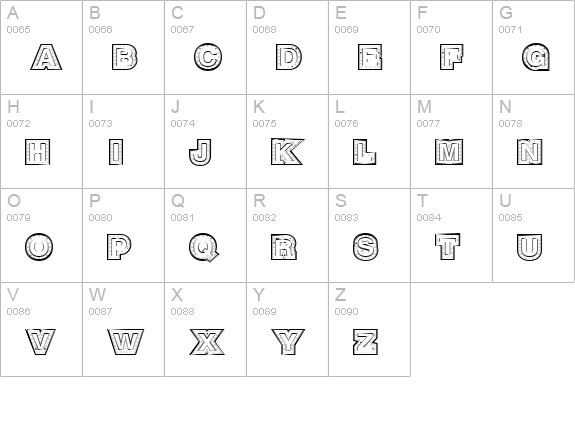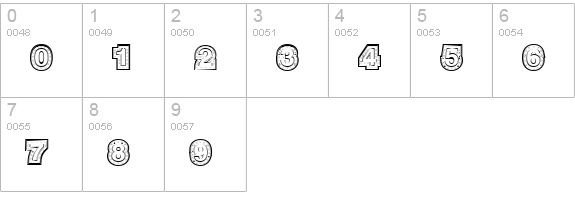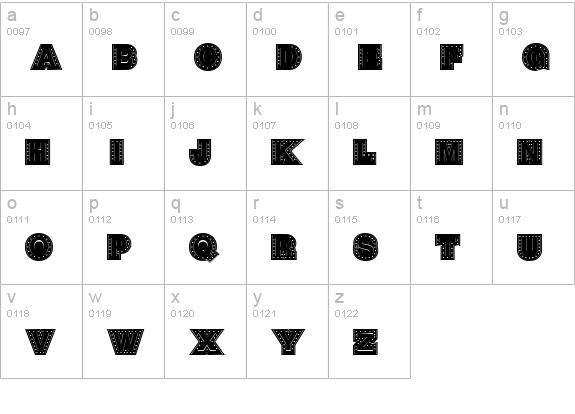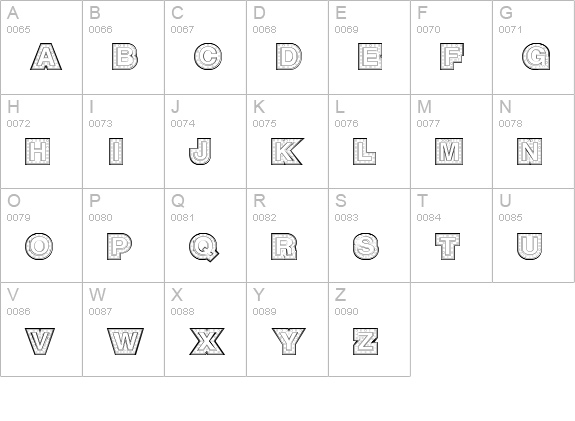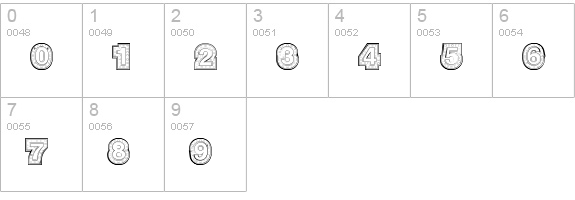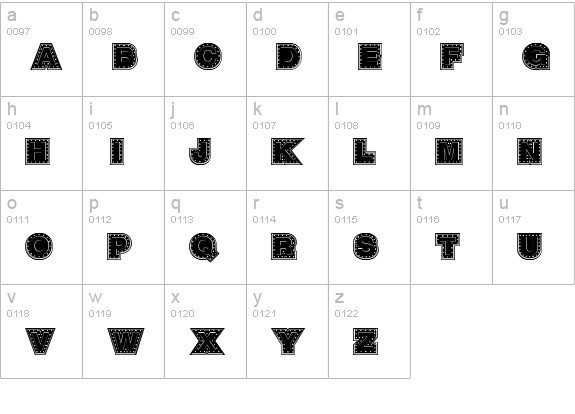
SteelTown Font Details
Introducing SteelTown, a versatile and captivating font that exudes strength and modernity. With its bold lines and sleek curves, SteelTown is the perfect choice for any project that requires a powerful and impactful typography. This font is not only visually striking, but also incredibly versatile, making it suitable for a wide range of design applications. Whether you're designing a logo, a website, a poster, or even a branding project, SteelTown will effortlessly elevate your design and make it stand out from the crowd. One of the most appealing aspects of SteelTown is that it is available for free. That's right, this stunning font can be freely downloaded at FontsMarket.com, allowing you to enhance your designs without breaking the bank. With its high-quality design and free availability, SteelTown is an exceptional choice for both professional designers and beginners alike. Featuring a wide range of characters, including uppercase and lowercase letters, numbers, punctuation marks, and special symbols, SteelTown offers endless possibilities for creative expression. Its clean and contemporary aesthetic ensures legibility while adding a touch of sophistication to any design. Download SteelTown today from FontsMarket.com and unlock the potential to create visually stunning and impactful designs. Whether you're designing for print or web, this font will undoubtedly become your go-to choice for projects that require a touch of elegance and strength. Don't miss out on this incredible opportunity to enhance your design toolbox with SteelTown - the free font that never fails to impress.